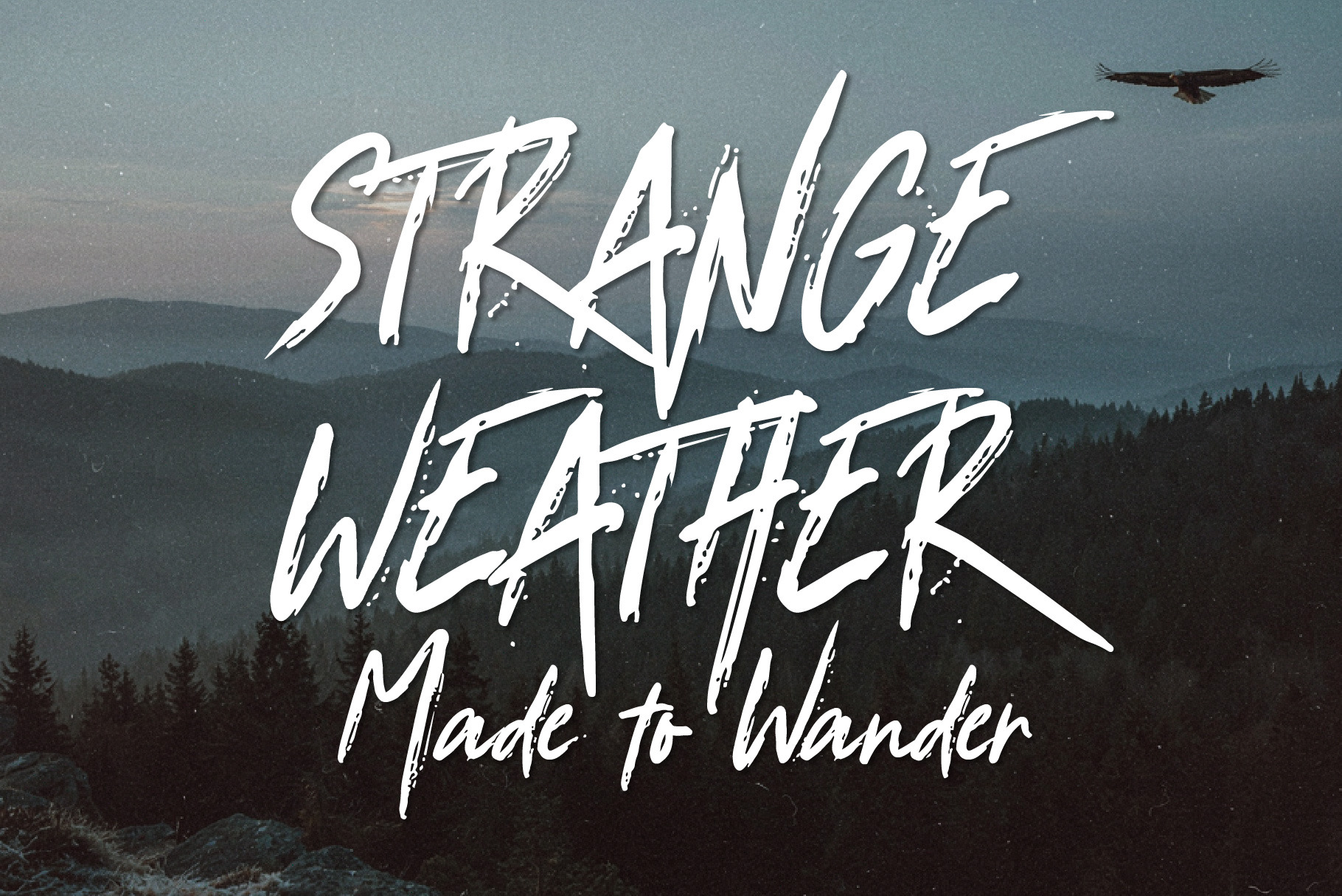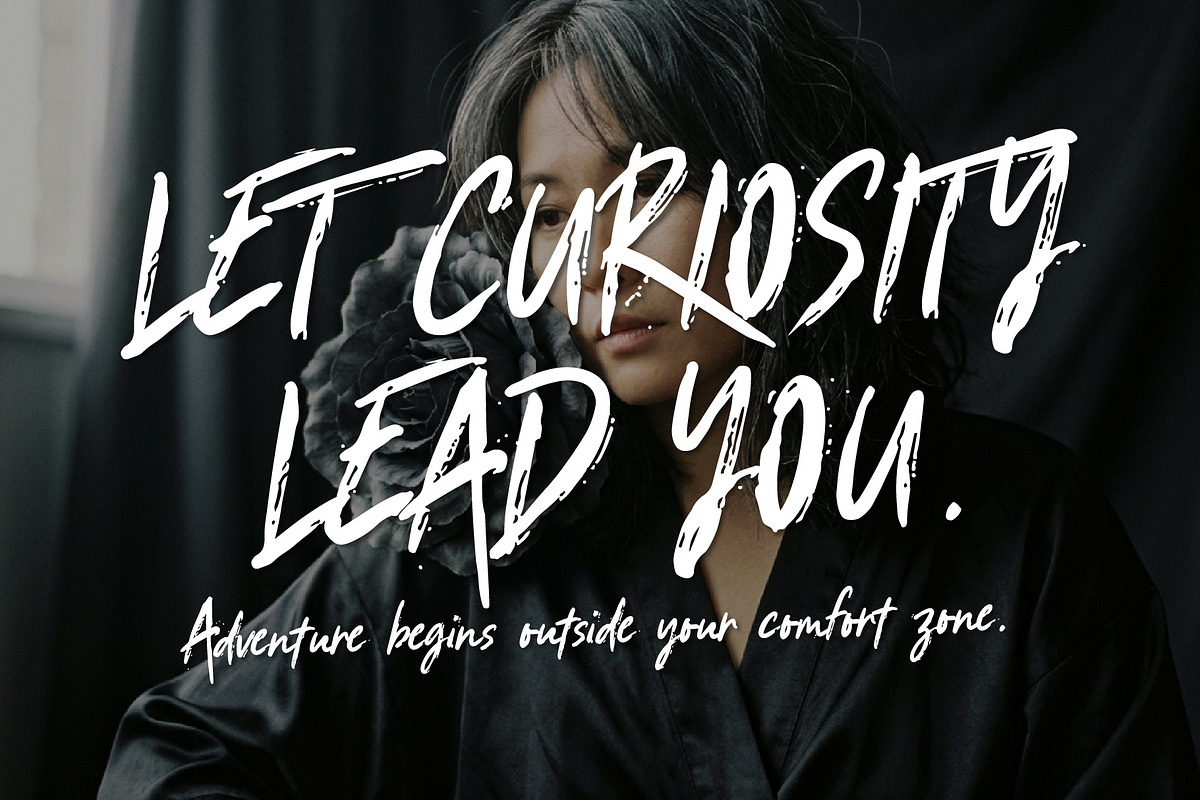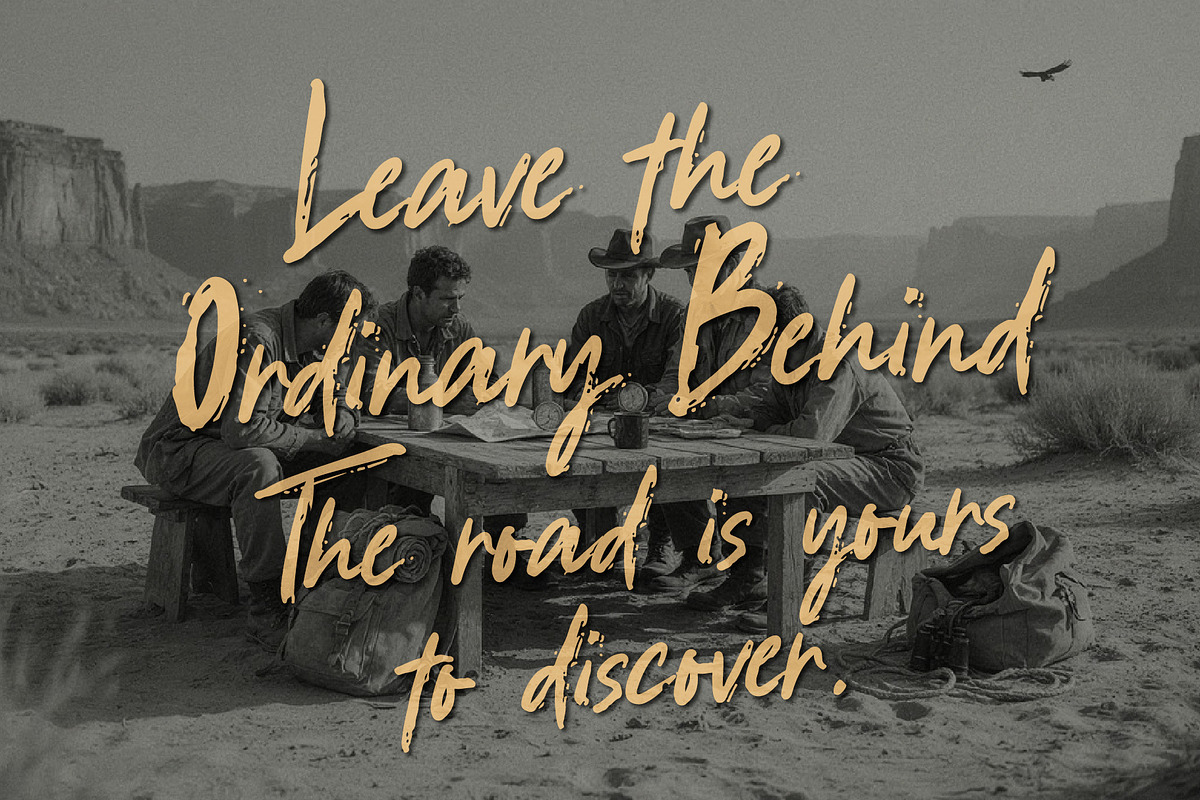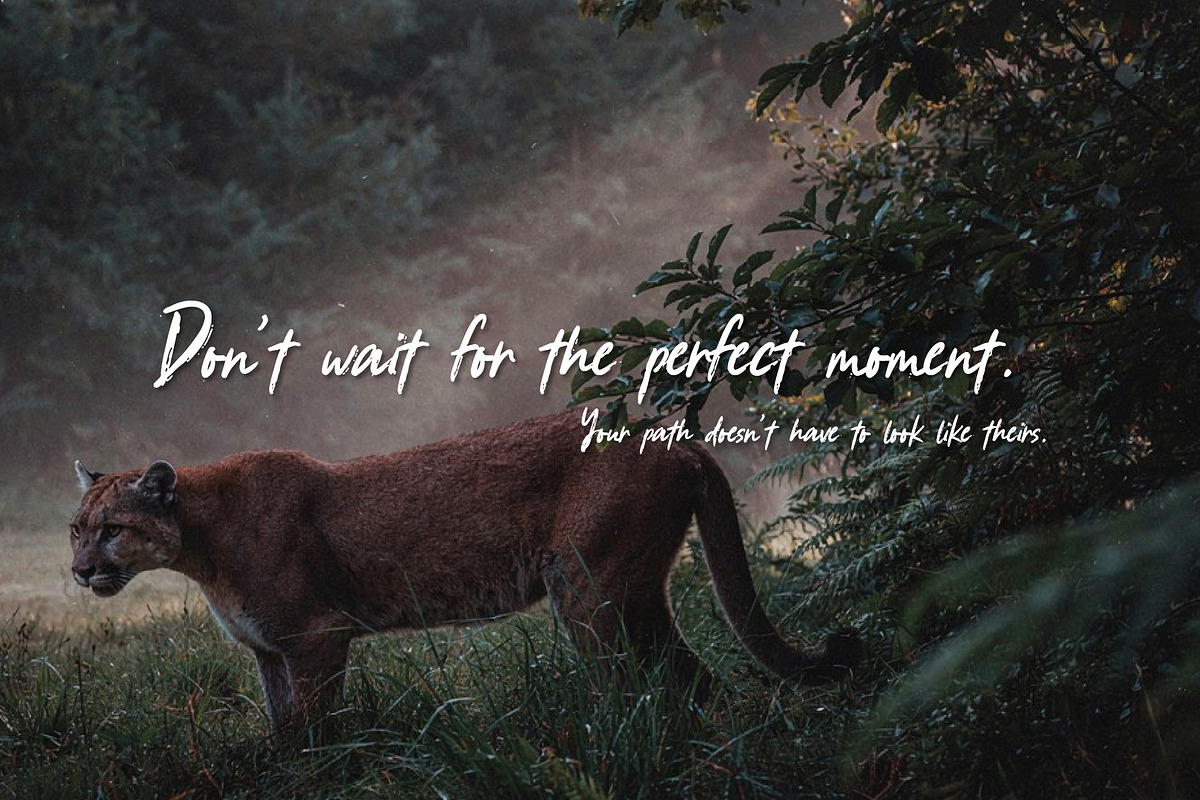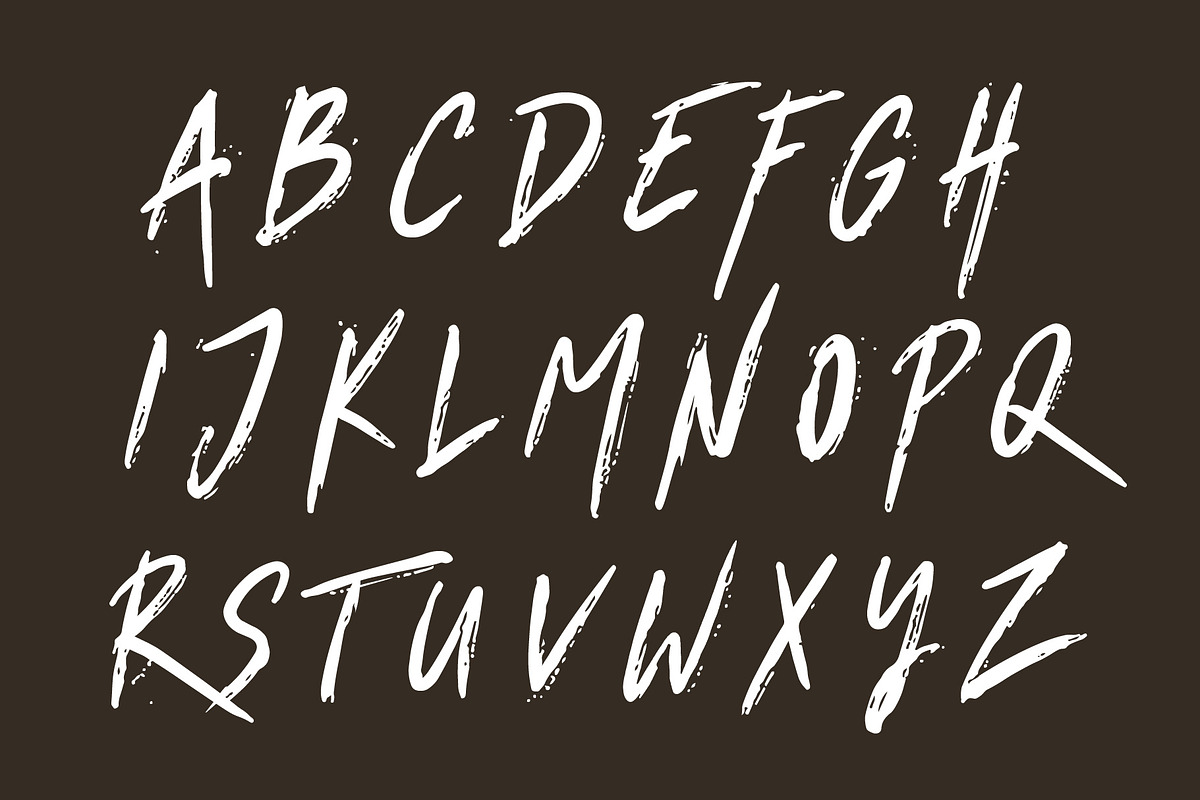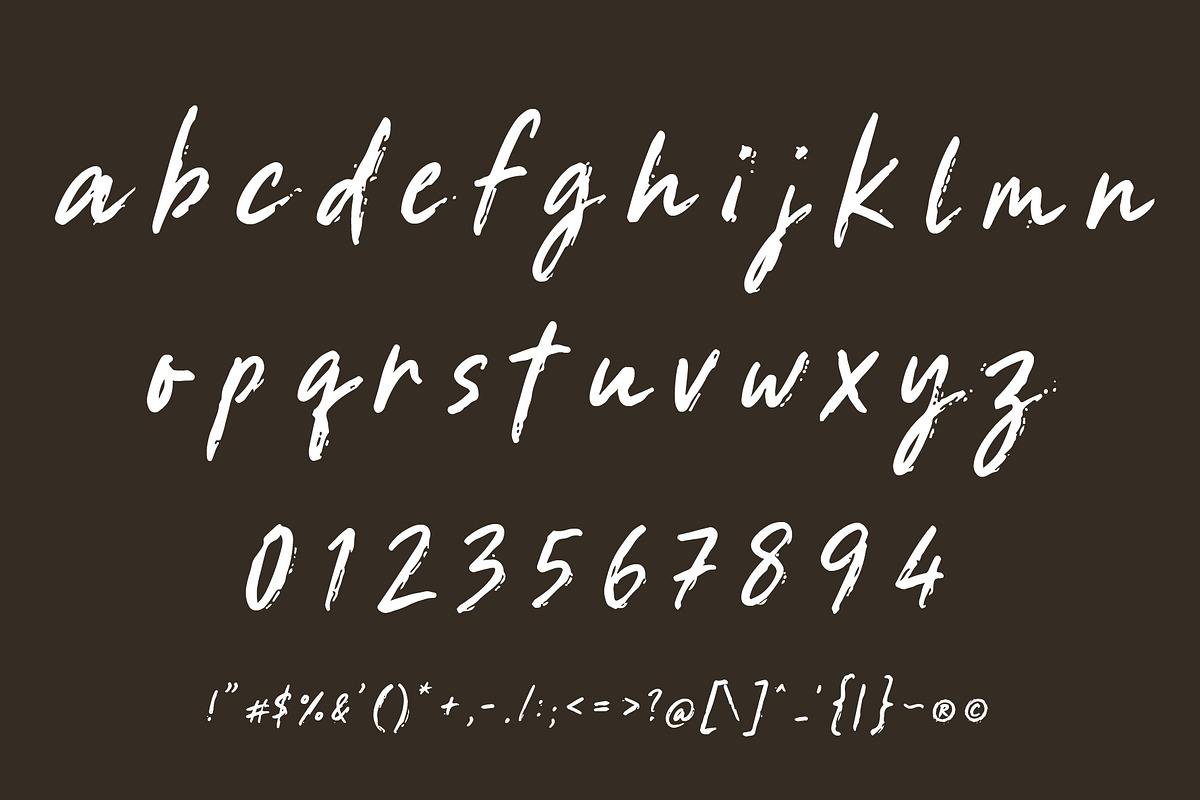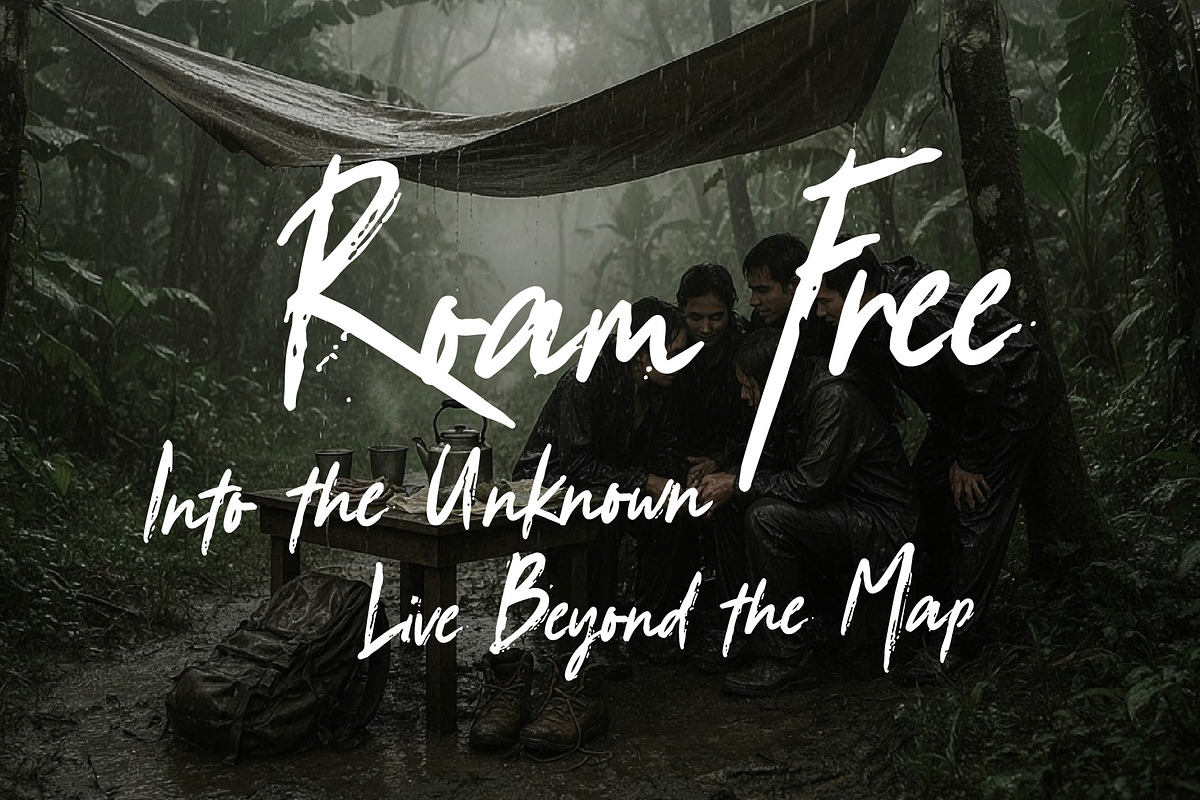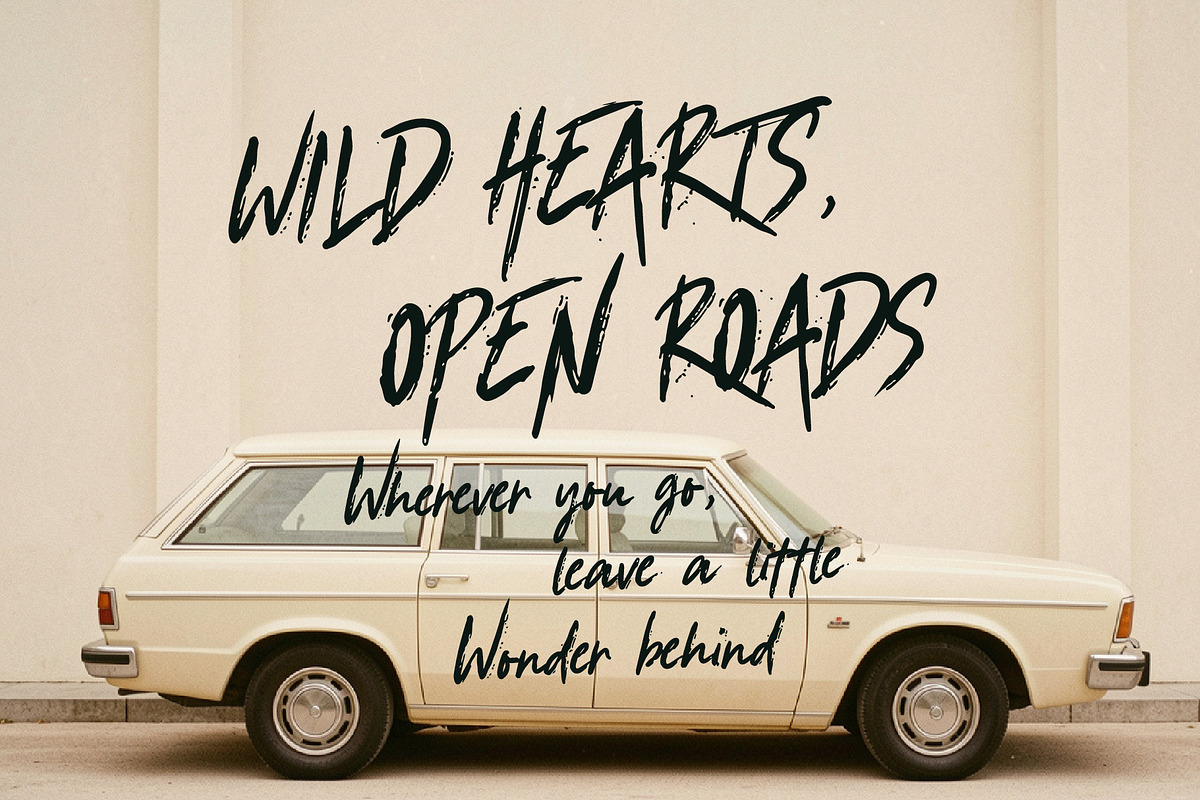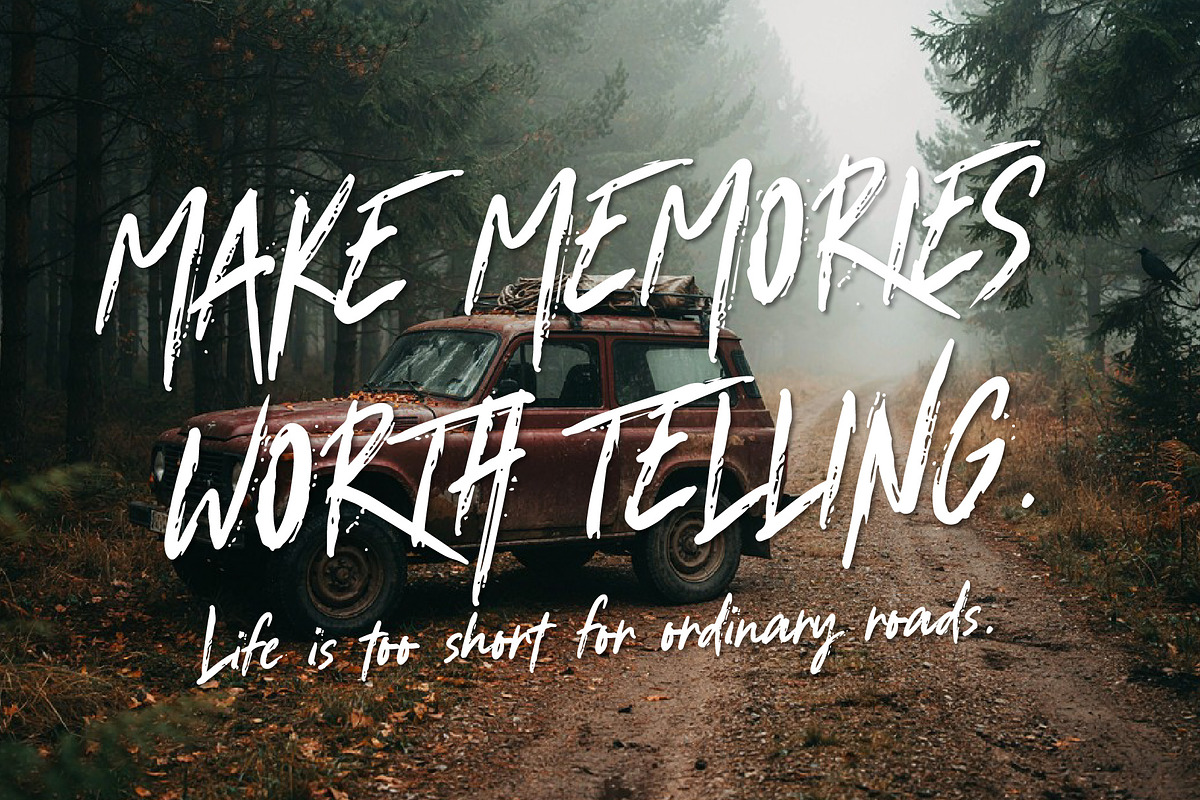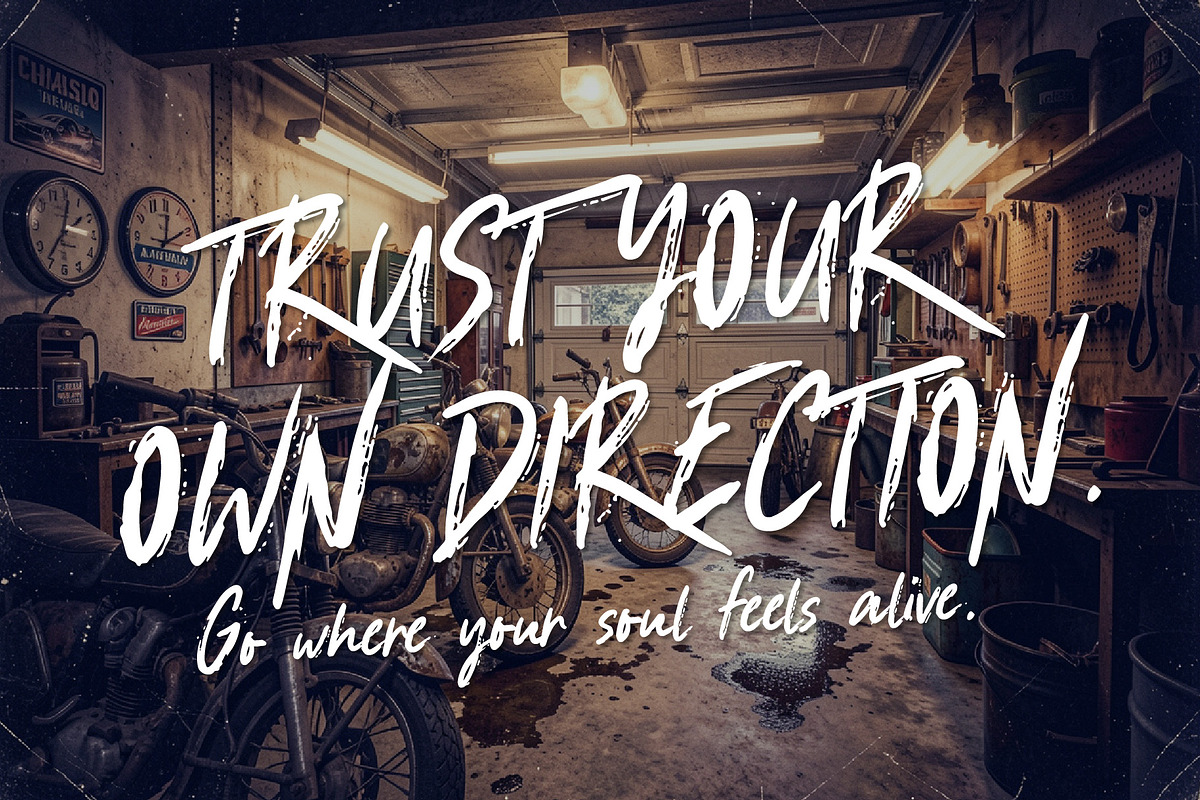
Strange Weather - Adventure font
Strange Weather is a hand-drawn grunge script inspired by adventure, movement, and the unpredictable spirit of the open road. Its rough handwritten strokes, signature style flow, and imperfect details create a raw yet stylish personality.
With an energetic balance of rugged character and expressive lettering, Strange Weather is made for designs that feel bold, free, adventurous, and a little rebellious. Perfect for adventure branding, travel projects, outdoor apparel, posters, badges, logos, photography, social media, packaging, and lifestyle designs.
A script for those who chase new roads, follow their own path, and never settle for ordinary.